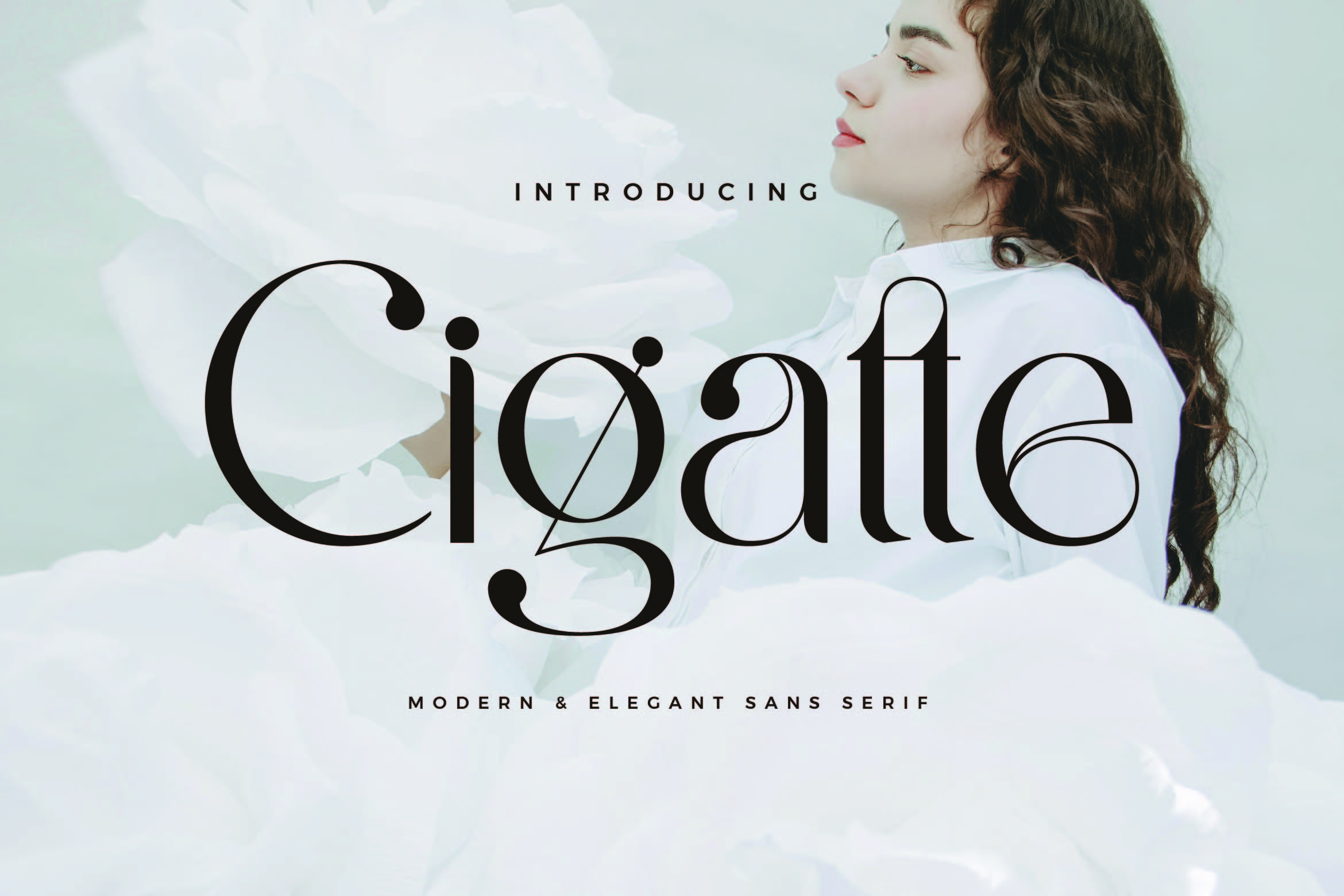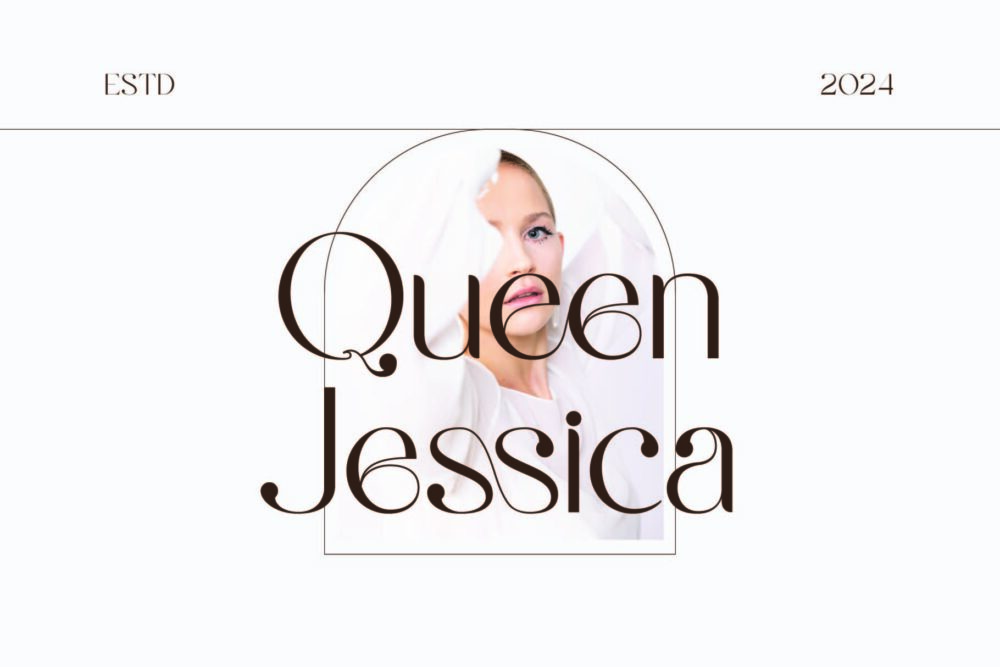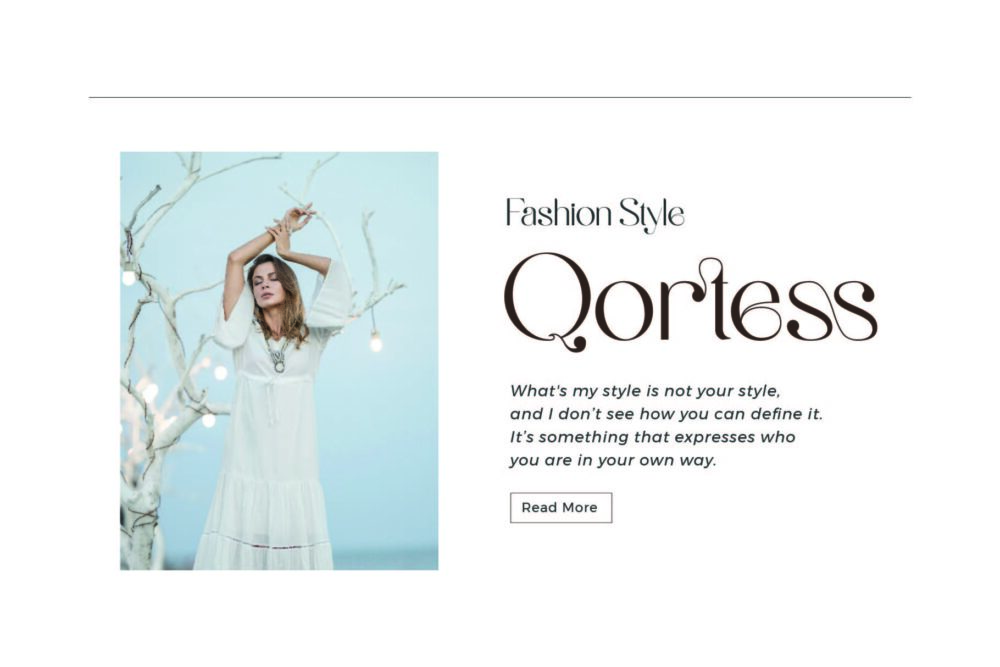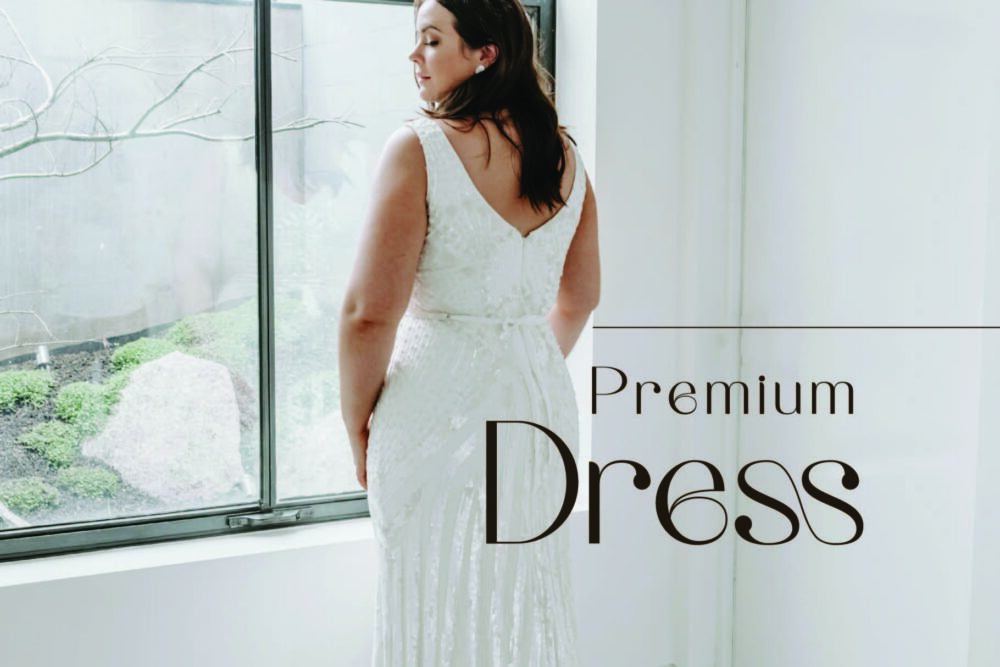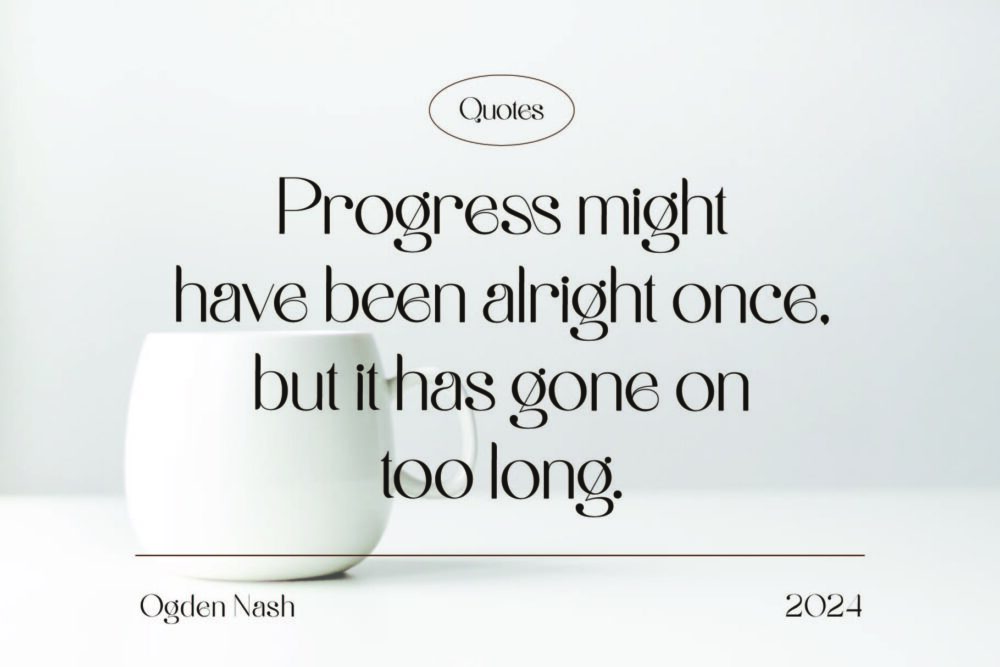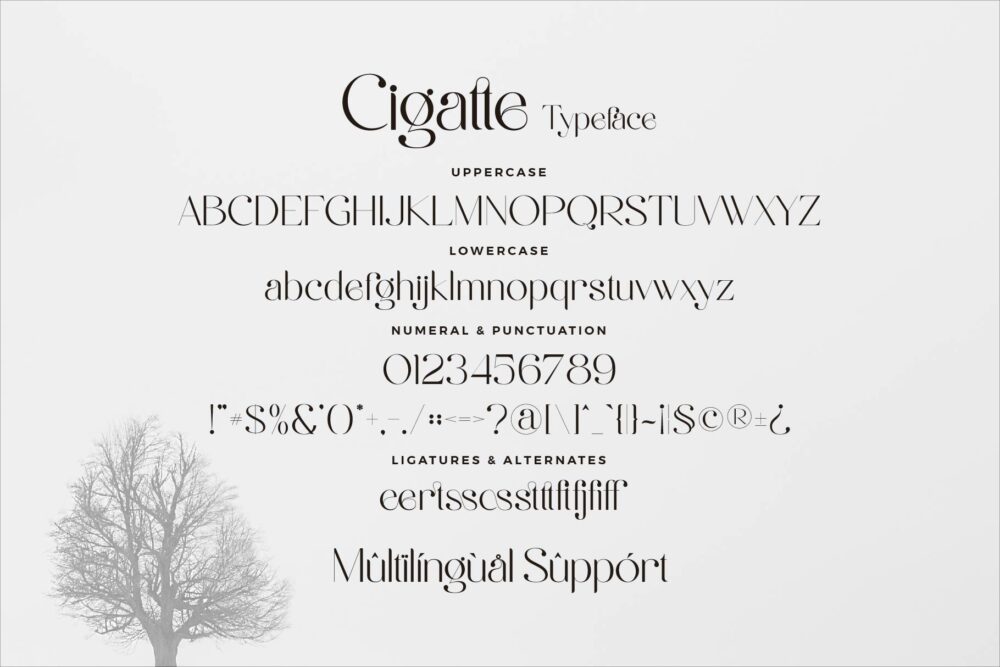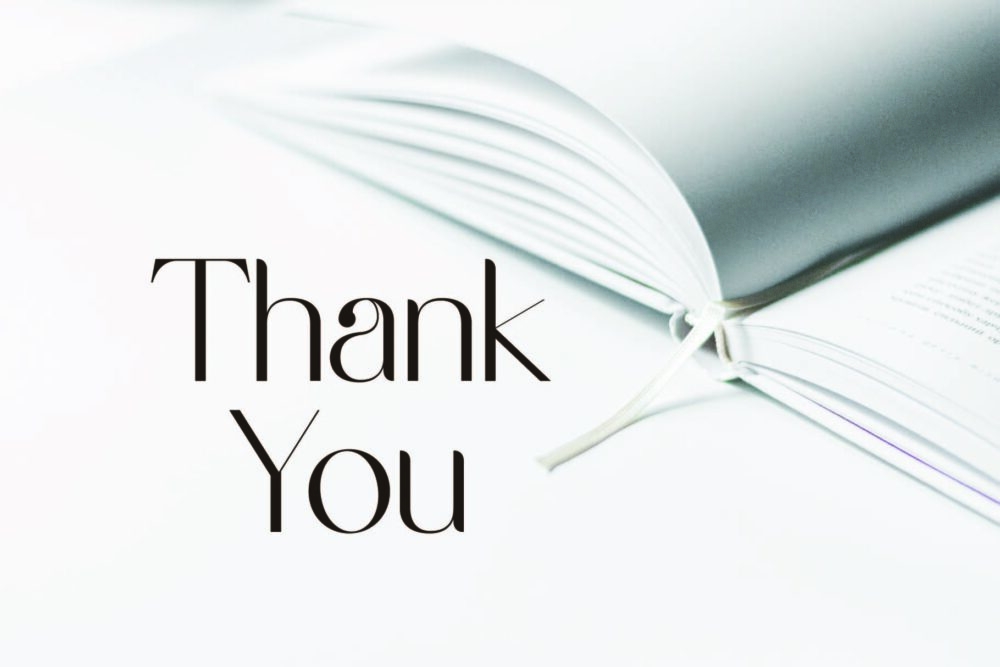
Cigatte
Cigatte Sans Font Typeface inspired by the famous minimalist logo perfect for the purposes of designing templates, brochures, videos, advertising branding, logos, invitation, layout design, elegant crafting, beauty design and other.
Cigatte – Modern Elegant Sans Serif Font